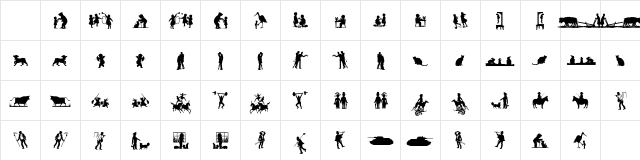
Complete Mixed Silhouettes Five Regular glyph index. Displaying only characters natively supported by Mixed Silhouettes Five Regular font.
Mixed Silhouettes Five is a composed and adaptable typeface that performs quietly and consistently across a wide range of design contexts.